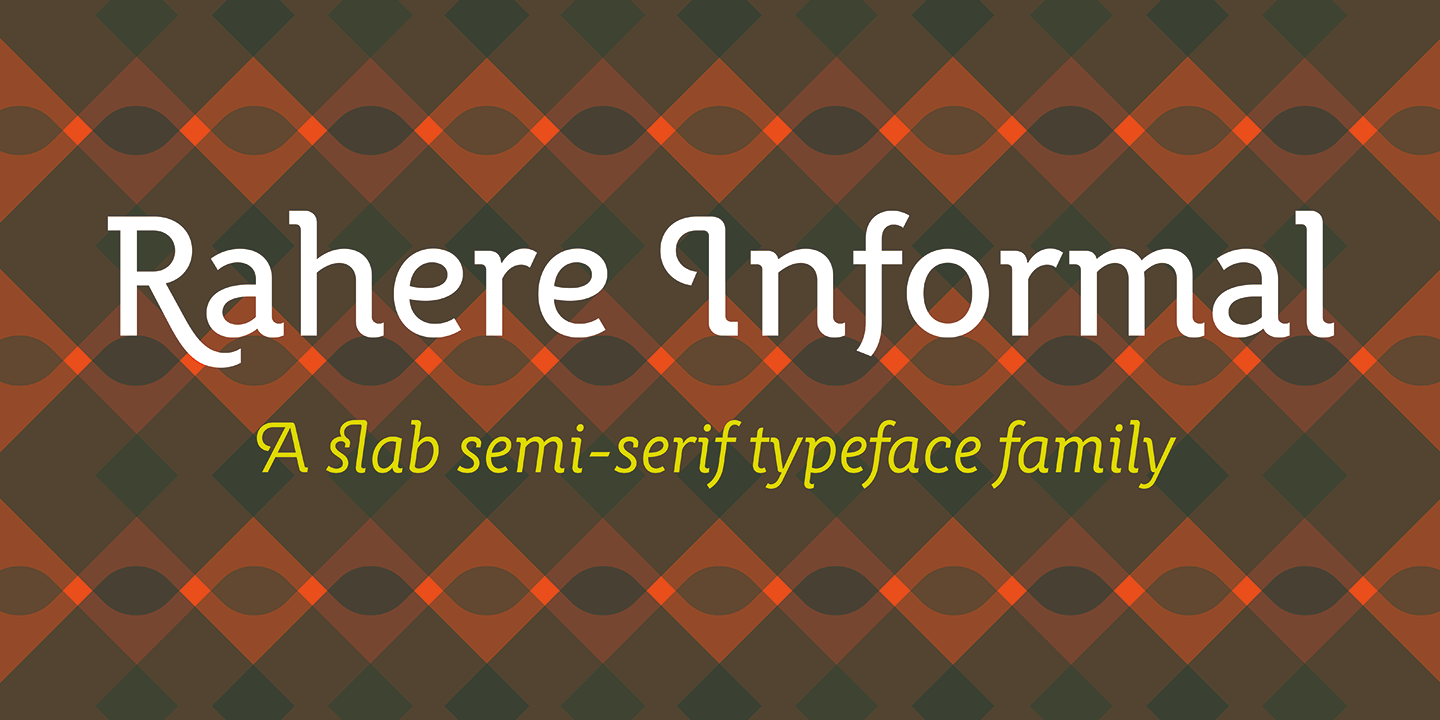
Rahere Informal
Designed by Michael Gills, Rahere Informal is a serif font family. This typeface has twelve styles and was published by ULGA Type.
Rahere Informal is a slab semi-serif typeface that has a seriously charming personality and a little spring in its step. Serifs bend and flick, giving the characters a spirited, almost calligraphic feel. It’s lively and friendly without being whimsical, great for messages that need a casual but credible tone with a bit of zing in the mix.
Rahere Informal is suitable for a wide range of applications such as information signage, packaging, advertising, brochures, catalogues, screen text, visual identities and opera festivals. Want an annual report that pleases the board, shareholders and investors? Set it in Rahere Informal - that’ll put a smile on everyone’s face.
The family comes in six weights from light to extra bold with corresponding italics. The lighter weights are more delicate, an evenly-spaced flamboyance of flamingos basking in the sun. As the weights get heavier, characters transform into a tight-knit group of line dancing rhinos. All styles contain a set of swash caps, a few ligatures and alternatives. Nice.
The character set covers most European languages, plus Vietnamese. Each weight contains lining & non-aligning numerals in both proportional & tabular spacing. The tabular numerals share the same width across all weights and styles (matching Rahere Sans and Rahere Slab).
If a companion sans serif is needed, Rahere Sans is the ideal partner. They are both part of the extended Rahere typeface family and have been designed to complement each other.